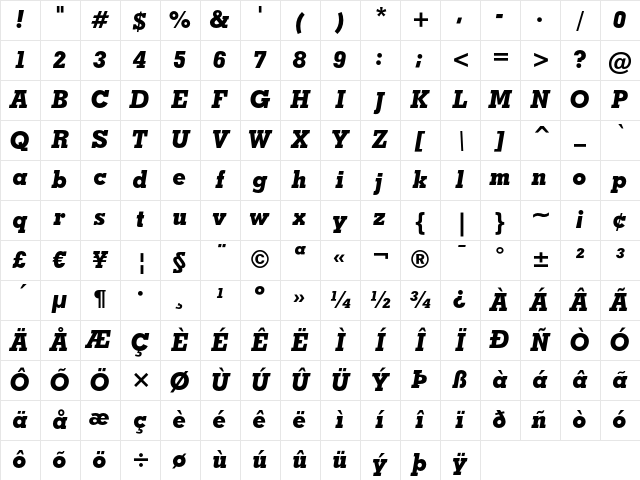
Complete Geometric Slabserif 703 Extra Bold Italic glyph index. Displaying only characters natively supported by Geometric Slabserif 703 Extra Bold Italic font.
Geometric Slabserif 703 features prominent, blocky serifs that give it a confident, grounded presence - equally at home in editorial settings and bold branding work. The slanted form adds forward momentum and visual energy. Its bold stroke weight gives it real presence on the page.
Pro Tip: Use Geometric Slabserif 703 for headlines and subheadings where its slab serifs can make an impression. It also holds up well in mid-size body copy thanks to its sturdy construction.